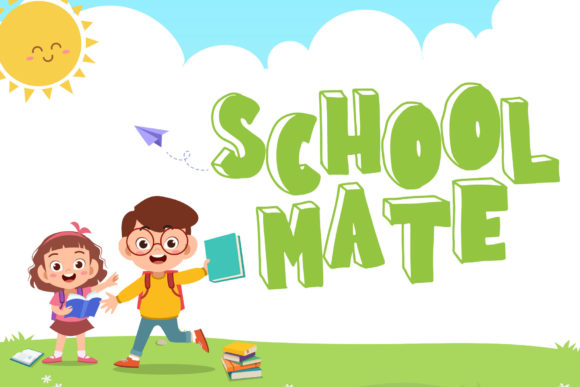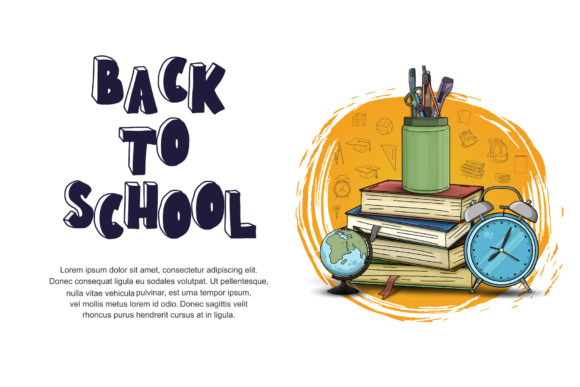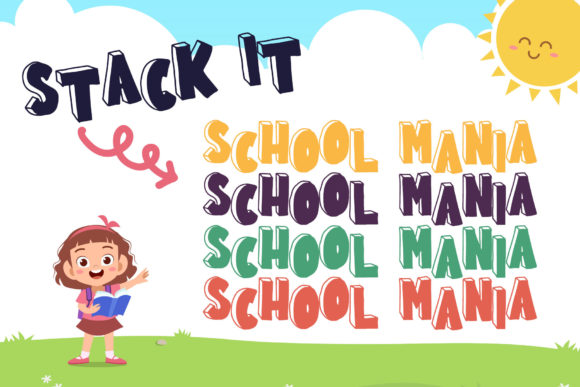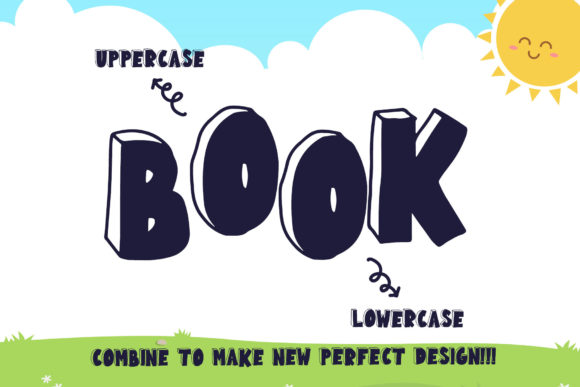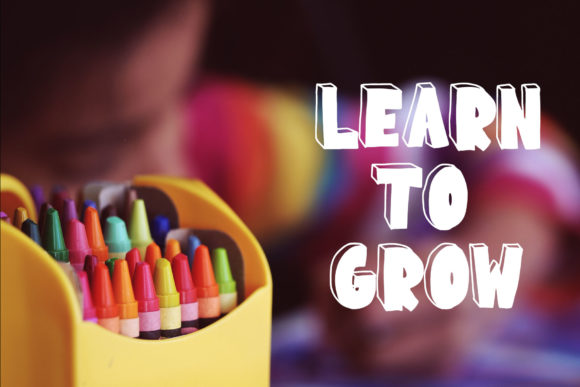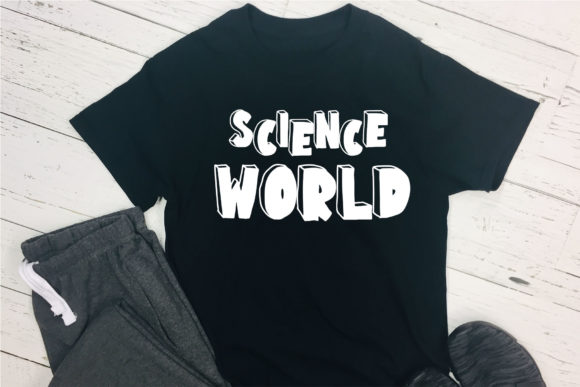
Introduction to School Mania Font Font
Fonts play a crucial role in design, and the School Mania Font font is a typeface that brings both character and versatility to any project. Whether you’re working on a branding project, a website, or a print design, the School Mania Font font offers a unique style that can elevate your work.
School Mania is a playful and quirky display font.
Fall in love with its fun & friendly style .
Key Features of School Mania Font Font
Why Choose School Mania Font Font?
The School Mania Font font is more than just a typeface – it’s a design tool that helps you communicate your message with style and clarity. Its unique character set and versatile design make it suitable for a wide range of applications, from elegant invitations to bold headlines.
With its carefully crafted letterforms and balanced proportions, the School Mania Font font ensures readability and visual appeal across all mediums.
What makes School Mania Font font special?
The School Mania Font font stands out with its unique design, exceptional readability, and versatility across various design applications.